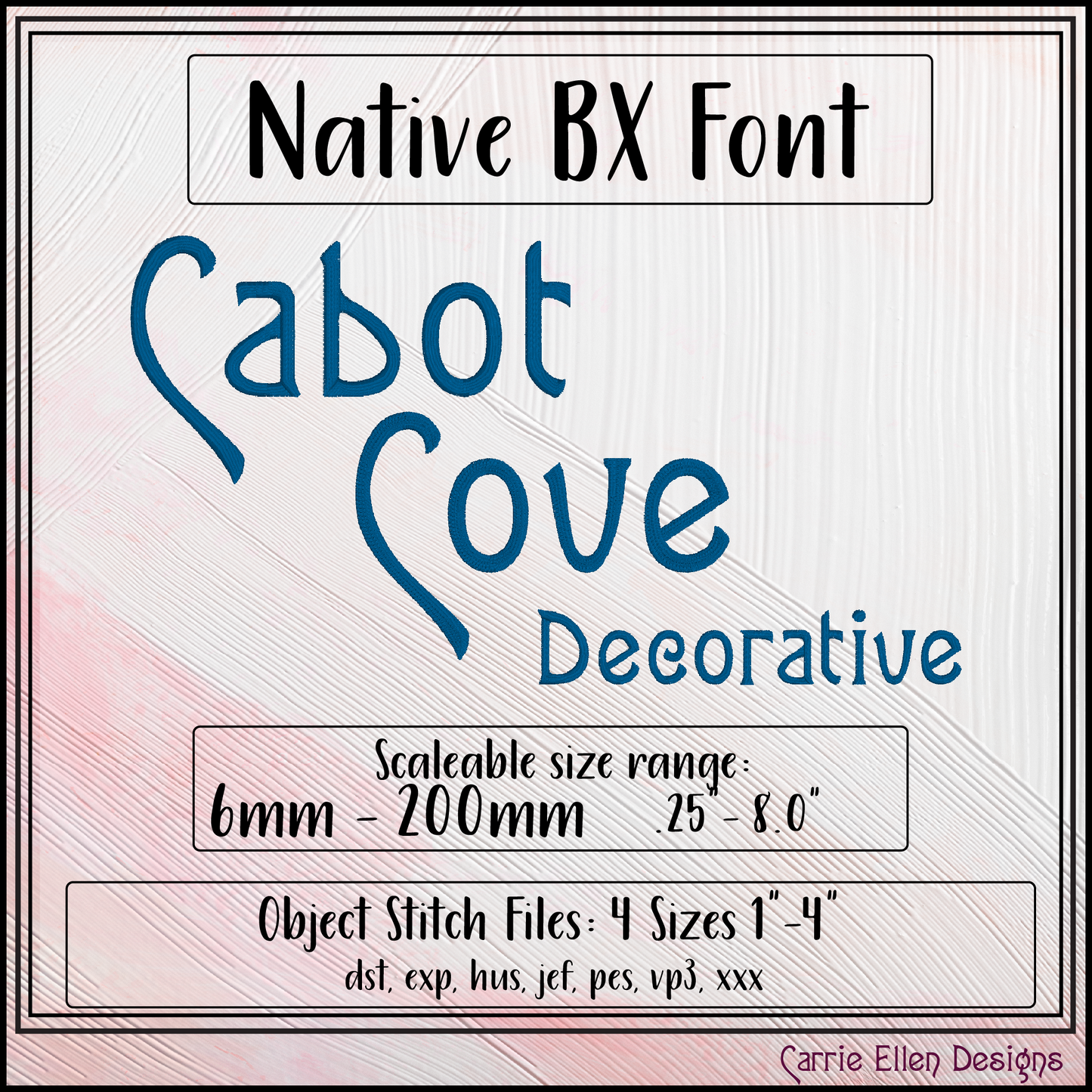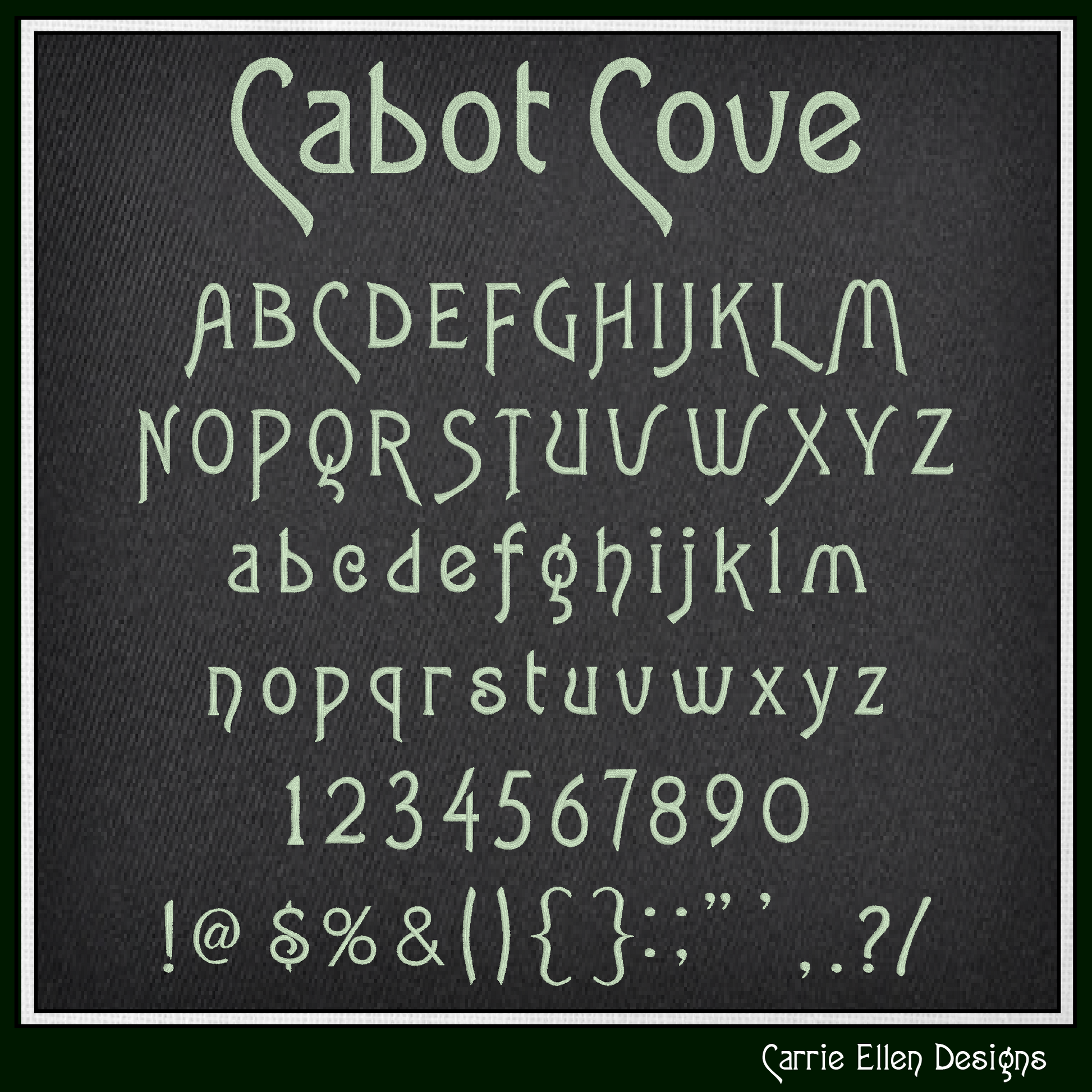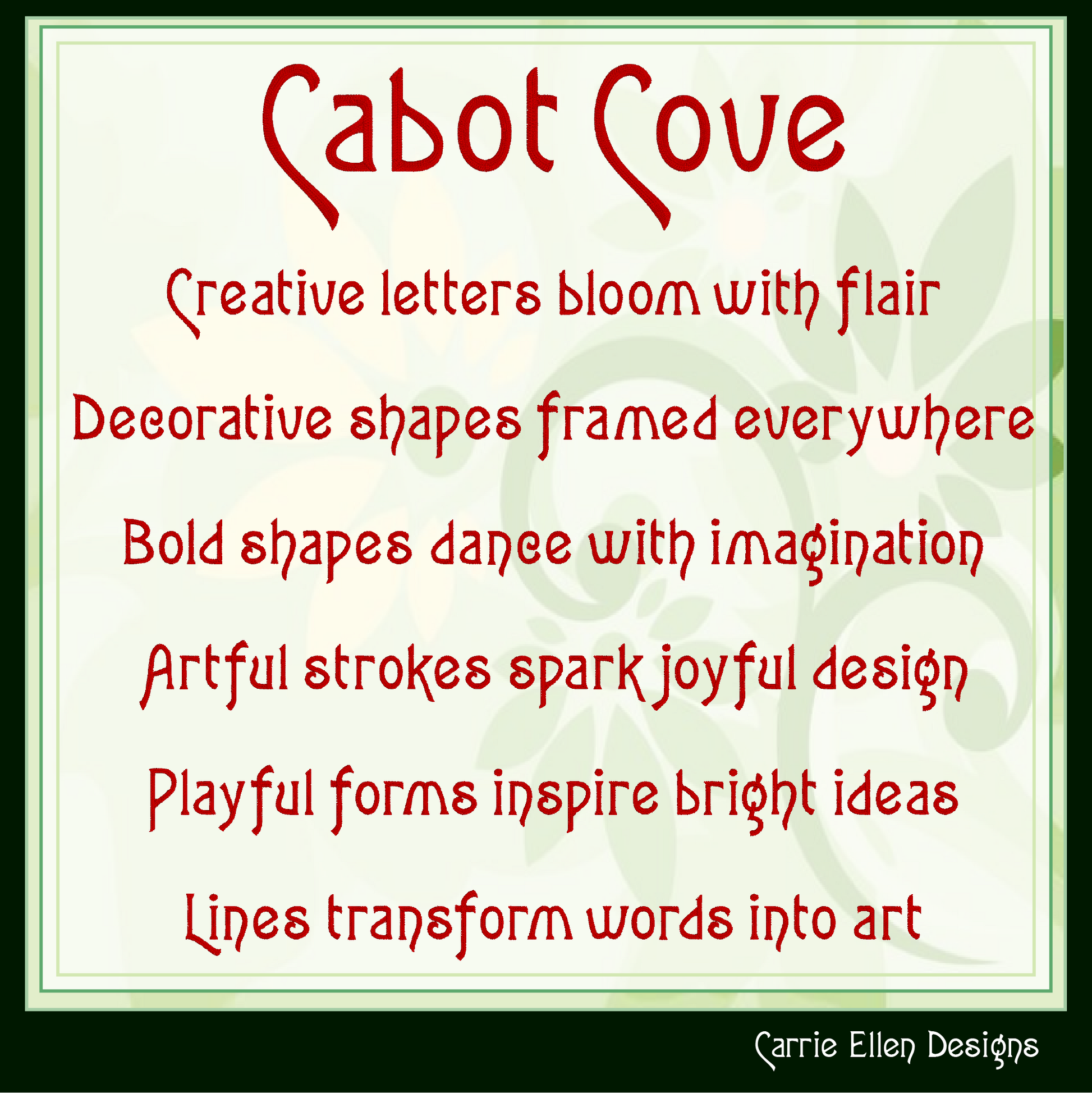
Cabot Cove Decorative BX Font & Lettering Stitch Files |Native Embrilliance Machine Embroidery Font (4006)
Elegant charm with a touch of vintage character ✨
The Cabot Cove Decorative BX Font is a beautifully styled machine embroidery alphabet designed to add personality and sophistication to your projects. With graceful curves and decorative letter styling, this font brings a timeless handcrafted look to embroidery.
Perfect for monograms, boutique apparel, home décor, gifts, and custom embroidery projects.
Font Features
• Cute handwritten style lettering
• Smooth satin stitch columns
• Balanced stitch density for clean results
• Perfect for personalization and monograms
- Uppercase letters
- Lowercase letters
- Numbers
- Basic punctuation
- Consistent styling across all characters